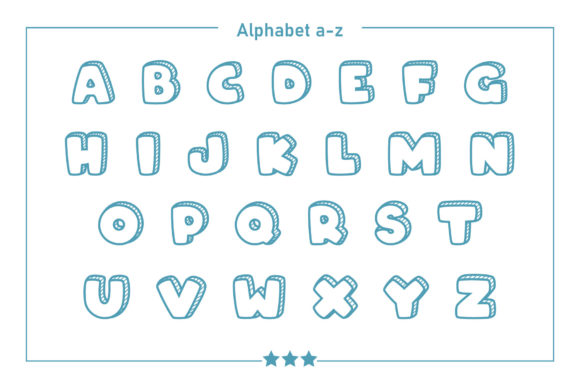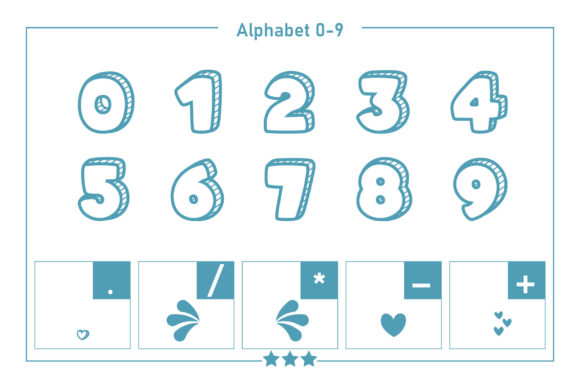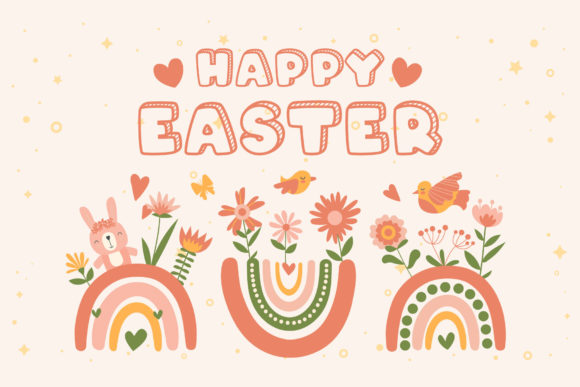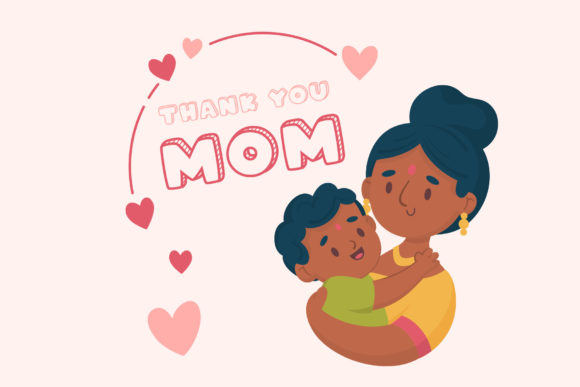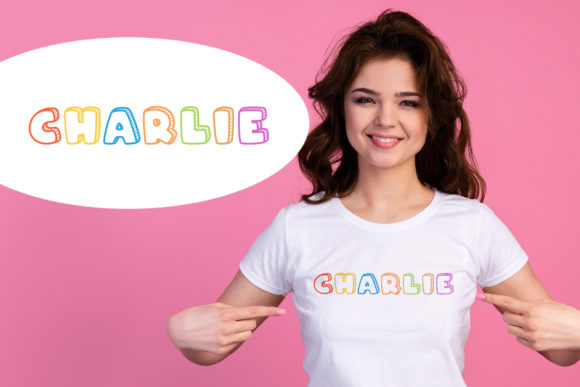
Bringing Out the Kid in You: The Joy of Kids Font
Have you ever stared at a blank canvas, feeling the pressure to create something truly unique and captivating? That’s exactly how I felt when I was working on a new project, trying to come up with the perfect design to grab the attention of my young audience. And then it hit me – I needed to add a touch of whimsy, a dash of playfulness, and a whole lot of fun!
That’s where Kids Font comes in – a cool display font that’s as cute as it is functional. Created in a style that’s both childlike and endearing, Kids Font is the perfect addition to any design that needs a little extra oomph. Whether you’re working on a children’s book, a website for a family-friendly brand, or even a social media campaign, Kids Font is sure to bring a smile to your face and a spring to your step.
As a designer, you know that the right font can make all the difference in setting the tone for your project. And with Kids Font, you’ll find that it’s not just a font – it’s an experience. It’s a way to tap into your inner child, to remember the joy and wonder of creating something new and exciting. So why not give Kids Font a try and see where it takes you?
Kids Font Key Features
- Font Style: A playful, child-friendly font designed to promote learning and engagement in young readers.
- Font Size and Resolution: Optimized for use at 12-24 points, with a recommended resolution of 300 DPI for high-quality printing and digital display.
- Unique Characteristics: Features rounded edges, smooth lines, and a clear, easy-to-read design that is perfect for children’s books, educational materials, and other youth-focused content.
- Language Support: Supports a wide range of languages, including English, Spanish, French, and many others, making it an ideal choice for multilingual publications.
- Scalability: Designed to be highly scalable, allowing it to maintain its legibility and charm at various font sizes and resolutions, from small text to large headings.
Kids Font Review
As a designer, I’ve had the chance to work with many fonts, and I must say that “Kids Font” has its unique charm. ✨ One of the things that I appreciate about this font is its playful and childlike feel, making it perfect for projects that require a whimsical touch. The font is highly customizable, allowing users to adjust the size, color, and spacing to their liking. ✨ Another notable feature is the variety of styles available, from bold to italic, giving designers a lot of flexibility when it comes to creating visually appealing content.
- Playful and childlike feel, perfect for whimsical projects
- Variety of styles available, including bold and italic
However, I do have a few concerns with “Kids Font”. ⚠️ One of the main limitations is that it may not be suitable for formal or professional projects, as it can come across as immature or unprofessional. Additionally, the font may not be as legible at smaller sizes, which could be a problem for designers who need to use it in small text or headlines. Finally, the font may not be as compatible with older systems or browsers, which could lead to display issues.
- May not be suitable for formal or professional projects
- May not be as legible at smaller sizes
- May not be compatible with older systems or browsers
Overall, I would say that “Kids Font” is a solid choice for designers who need a playful and customizable font. While it has its limitations, it’s a great option for projects that require a childlike touch. Just be sure to use it judiciously and consider the needs of your project before making a decision.
Tips: Use Kids Font for playful and educational content, such as children’s books, party invitations, and educational materials.
Tips: Use Kids Font for creative projects, such as illustrations, graphics, and animations.
Tips: Use Kids Font for presentations, reports, and educational materials.
Kids Font is ideal for:
- Children’s books and educational materials
- Playful and creative projects
- Presentations and reports for children